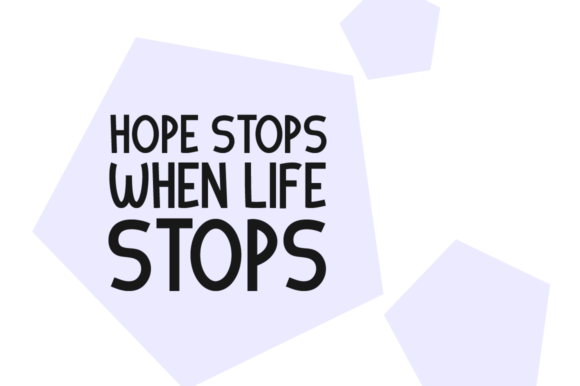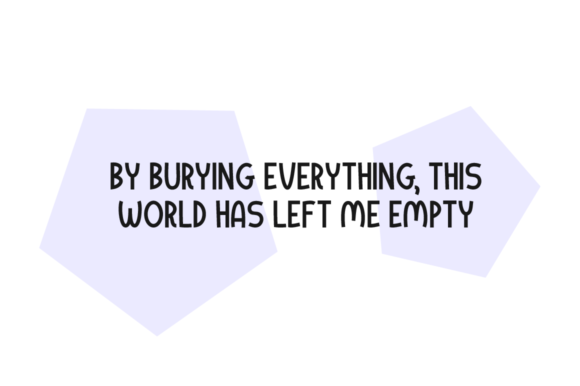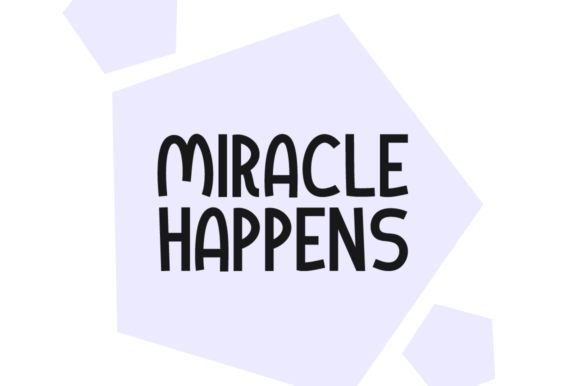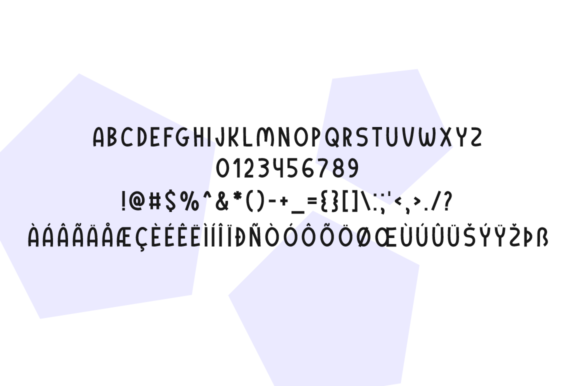
Uncovering the Buried Hopper Font: A Designer’s Dream Come True
I’ll never forget the frustration of working on a project, hours poured into designing a stunning visual piece, only to be held back by the perfect font. It was as if my creativity was buried under a mountain of lackluster typography. That’s when I stumbled upon the Buried Hopper font, a game-changing display font that has become my go-to for various design projects.
First Impressions: A Love Affair with Buried Hopper
Buried Hopper is a brand new display font, perfectly suited for stationery, logos, t-shirts, paper, print design, website headers, photo frames, flyers, music covers, posters, image sliders, and much more. Here’s what I love about it:
- ✨ Unique and eye-catching design that stands out in any project
- ✅ Highly versatile, suitable for various design applications
- ⚡️ Excellent readability, even at smaller sizes
- 🎨 A wide range of creative possibilities with OpenType features and glyphs
The Not-So-Perfect: A Few Quirks
While Buried Hopper has won my heart, it’s not without its limitations. Here are a few things to keep in mind:
- 🤔 Limited suitability for body text, as it’s primarily designed for display purposes
The Story Behind Buried Hopper
Buried Hopper was designed with the intention of creating a unique, versatile font that could be used across various design applications. The designer aimed to craft a font that was both eye-catching and readable, making it perfect for creative projects.
| Font Name | Buried Hopper Font |
| Author | Seemly Fonts |
Q: What is Buried Hopper font best used for?
A: Buried Hopper is best used for display purposes, such as titles, headlines, logos, and branding.
Q: Is Buried Hopper suitable for body text?
A: While Buried Hopper can be used for body text, it’s primarily designed for display purposes and may not be the most readable choice for longer blocks of text.
Q: Does Buried Hopper support OpenType features?
A: Yes, Buried Hopper supports OpenType features, including stylistic alternates, glyphs, and ligatures.